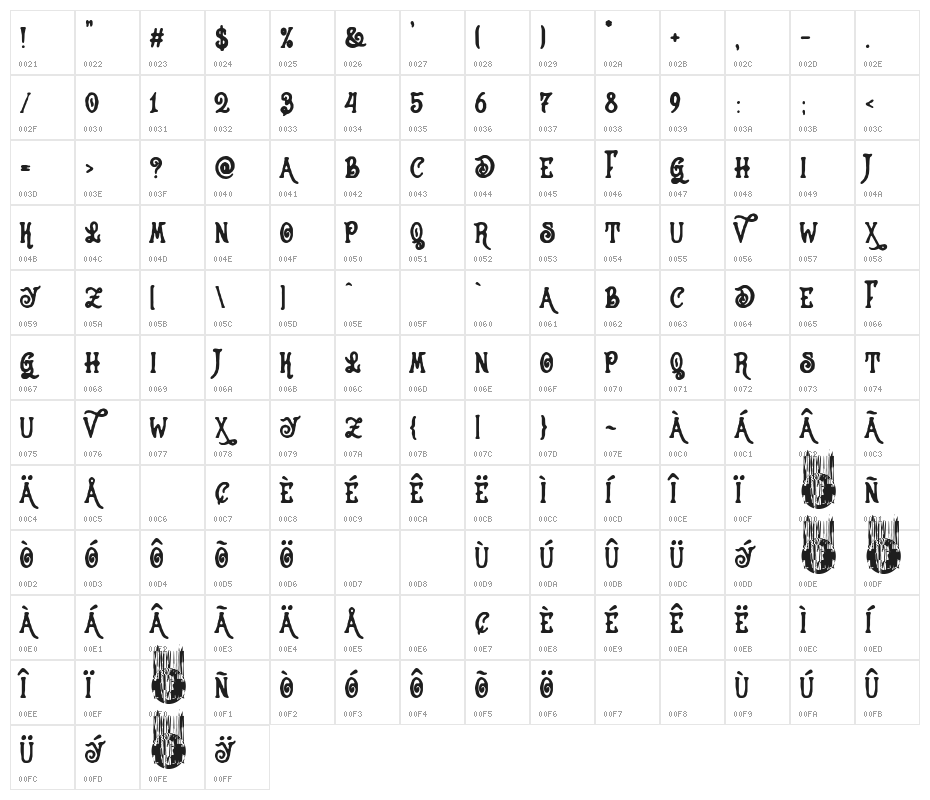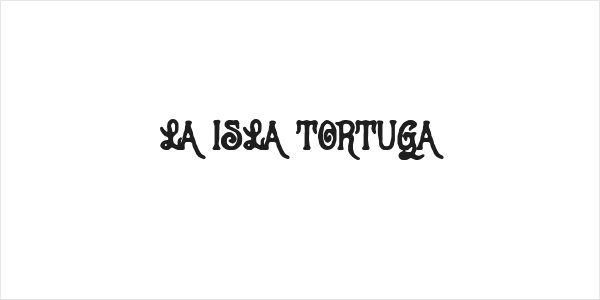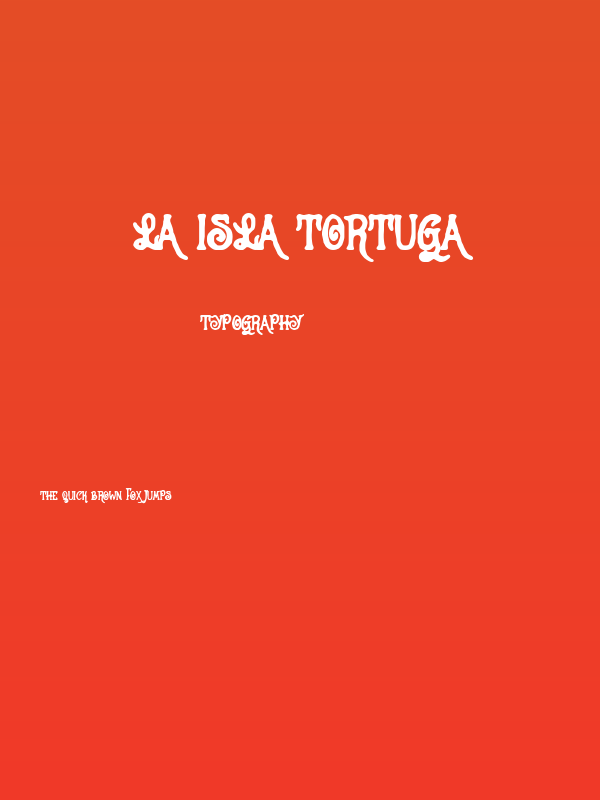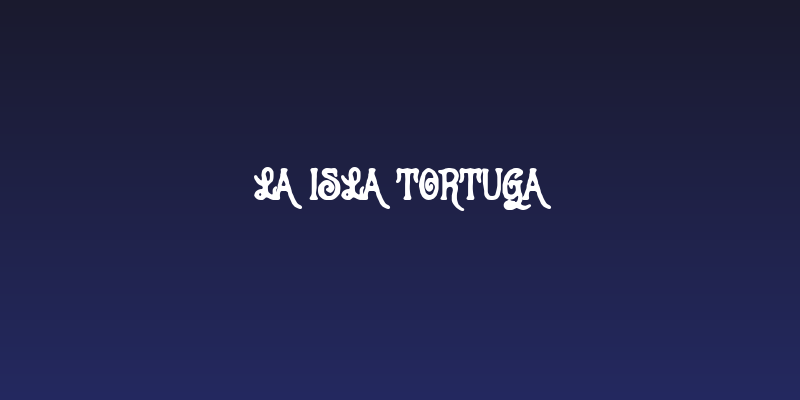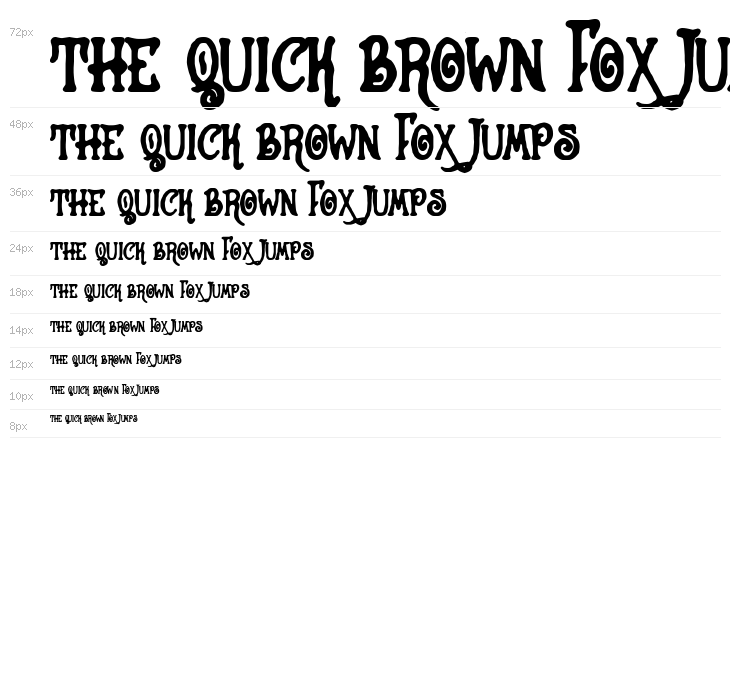
La Isla Tortuga Font
La Isla Tortuga Description
This font features a highly decorative and whimsical style, characterized by its bold and intricate letterforms. Each character is uniquely designed with swirling and curling elements, giving it a playful and adventurous feel. The font has a strong presence, making it ideal for eye-catching designs. The uppercase and lowercase letters maintain a consistent style, with the uppercase being more elaborate. Numbers and special characters are equally ornate, ensuring a cohesive look across all text elements. The font's artistic flair makes it suitable for projects that require a touch of fantasy or creativity.
Proposed ProjectsIdeal for themed event posters, fantasy book covers, pirate-themed designs, and creative branding projects.